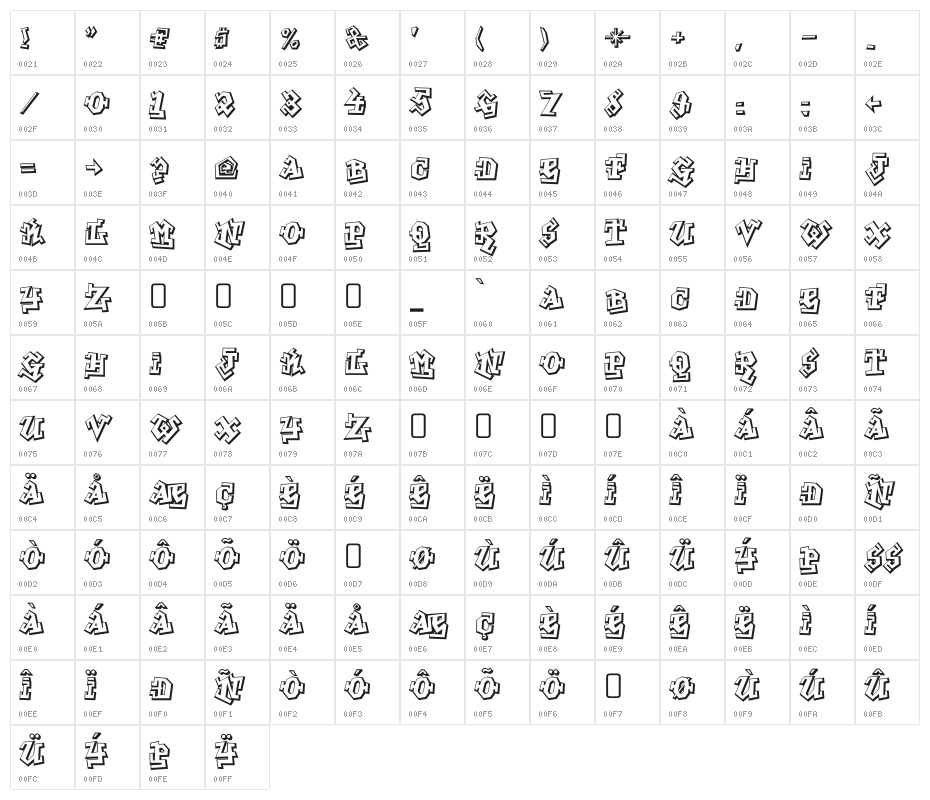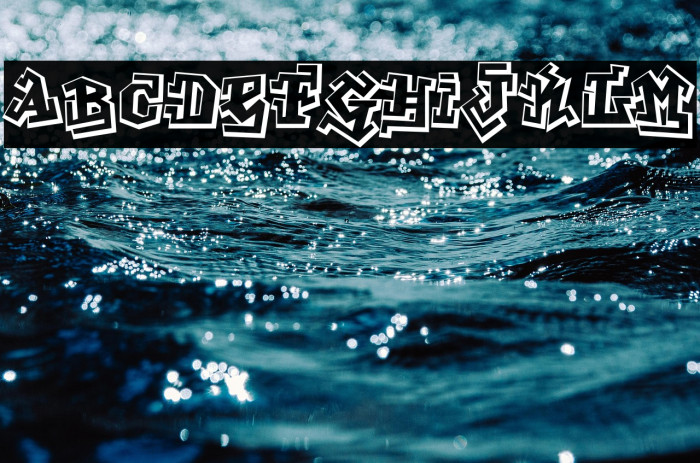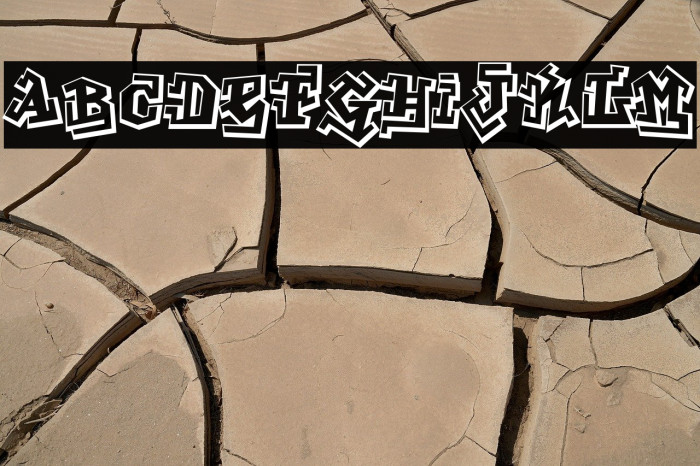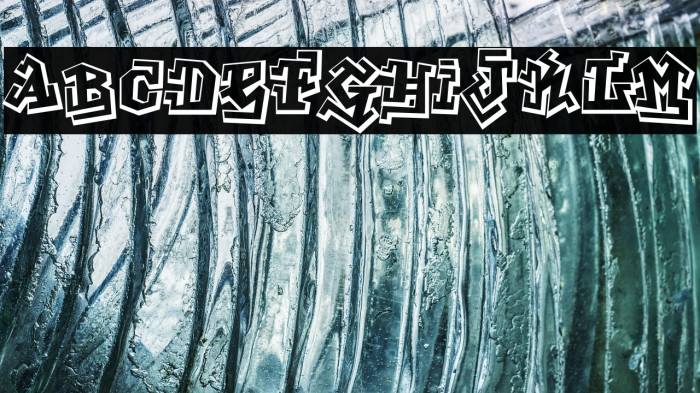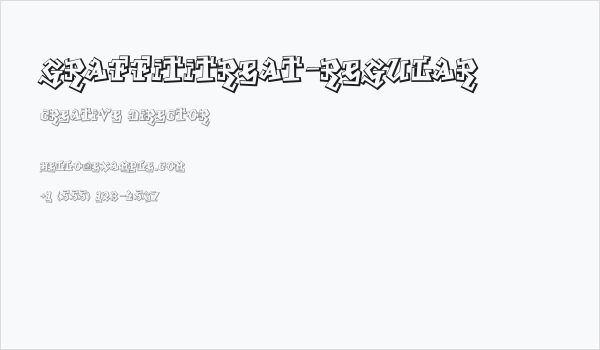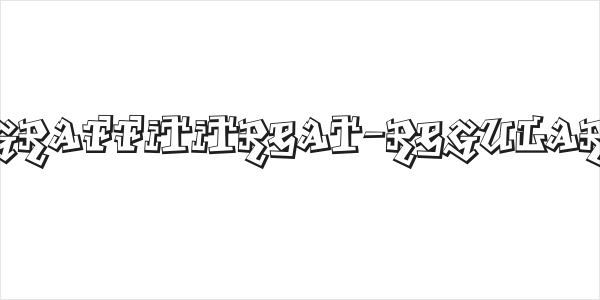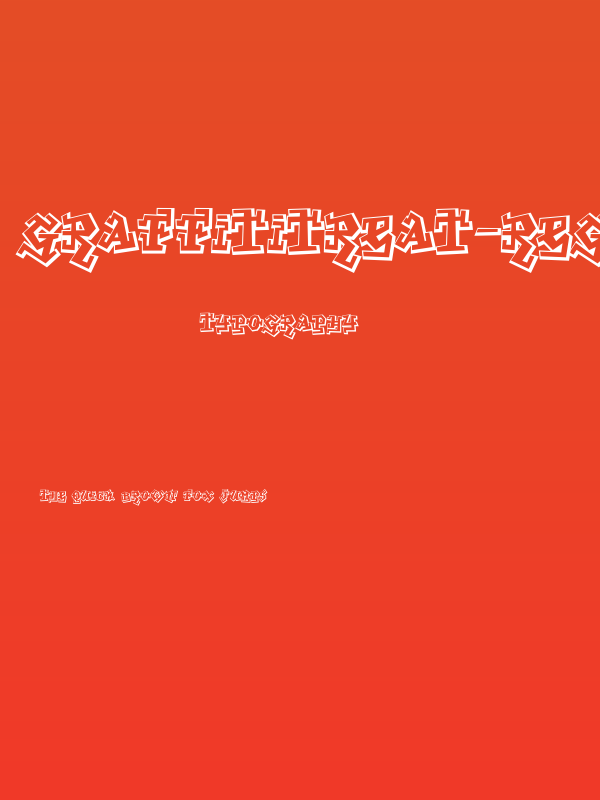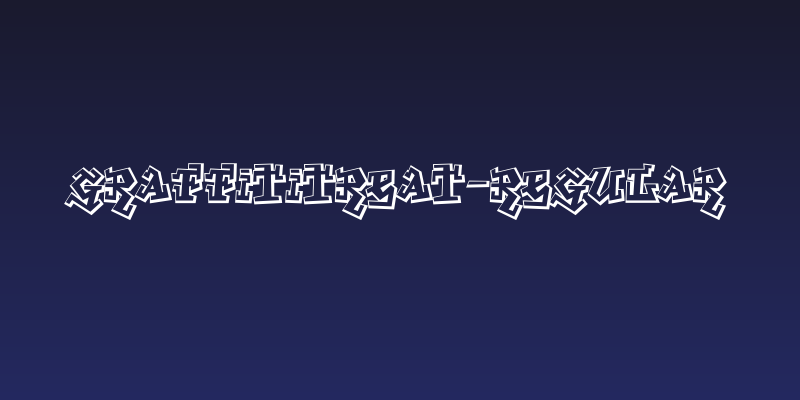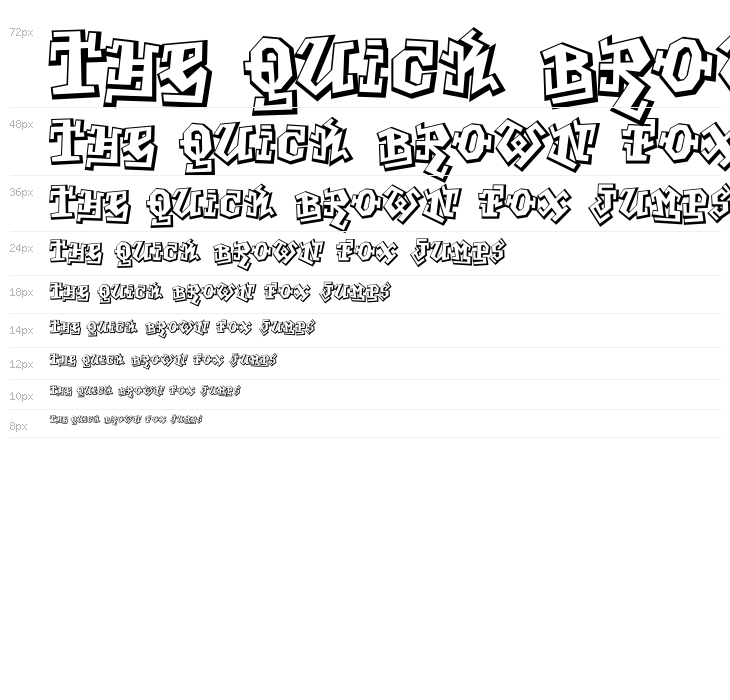
GraffitiTreat-Regular Font
GraffitiTreat-Regular Description
This font embodies a bold and edgy graffiti style, characterized by its angular and dynamic letterforms. Each character is outlined with a thick border, enhancing its street art aesthetic. The font features a three-dimensional effect, giving it a sense of depth and movement. The uppercase and lowercase letters maintain a consistent style, with sharp edges and a playful, rebellious attitude. Numbers and special characters are equally stylized, making them suitable for creative and urban-themed projects. The overall design is eye-catching and energetic, perfect for making a statement.
| Overall Style | Modern, Urban |
| Proposed Projects | Ideal for street art designs, urban-themed posters, music album covers, and youth-oriented branding. |